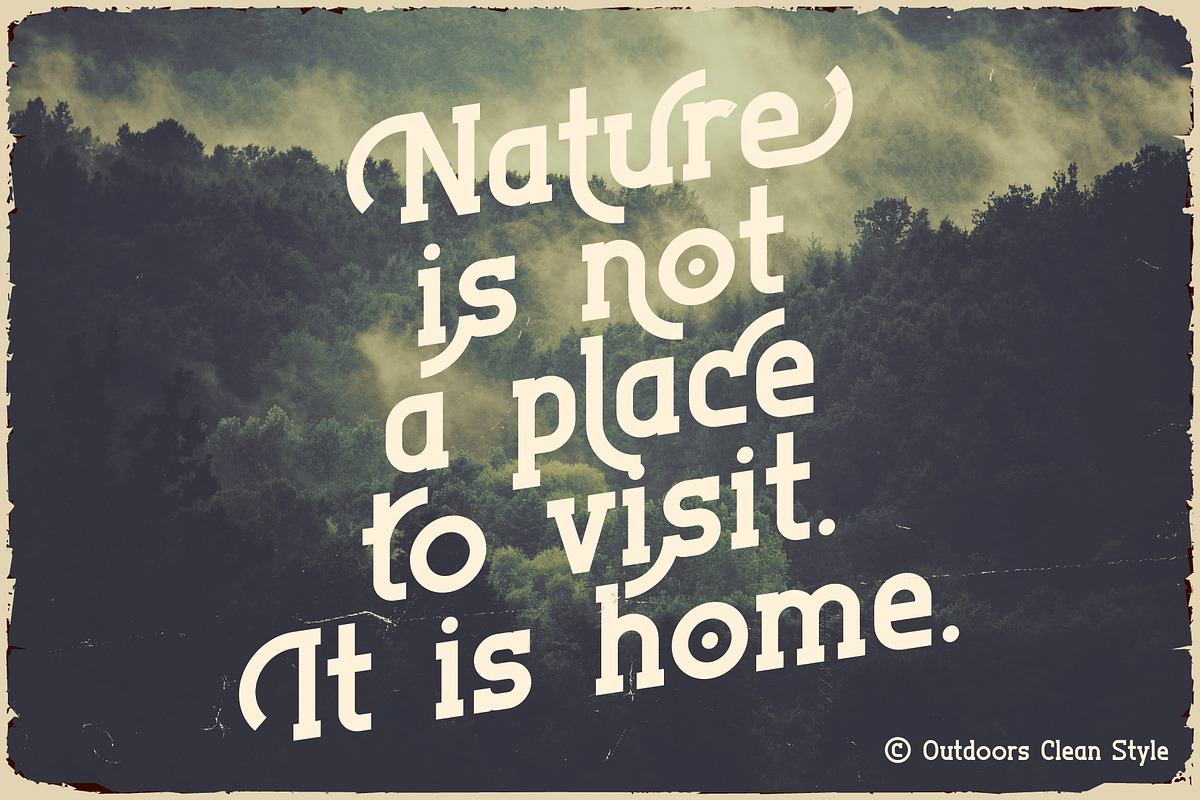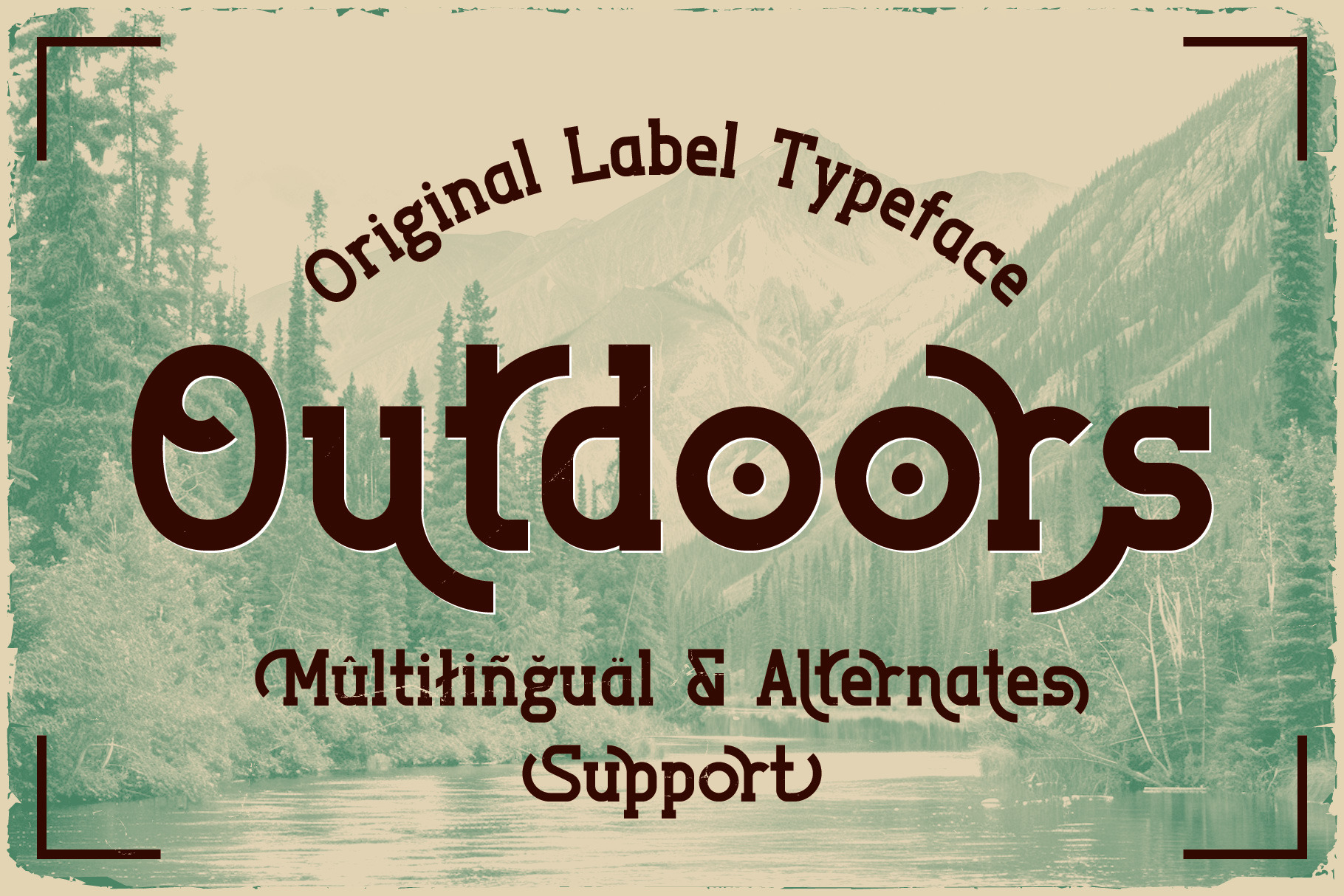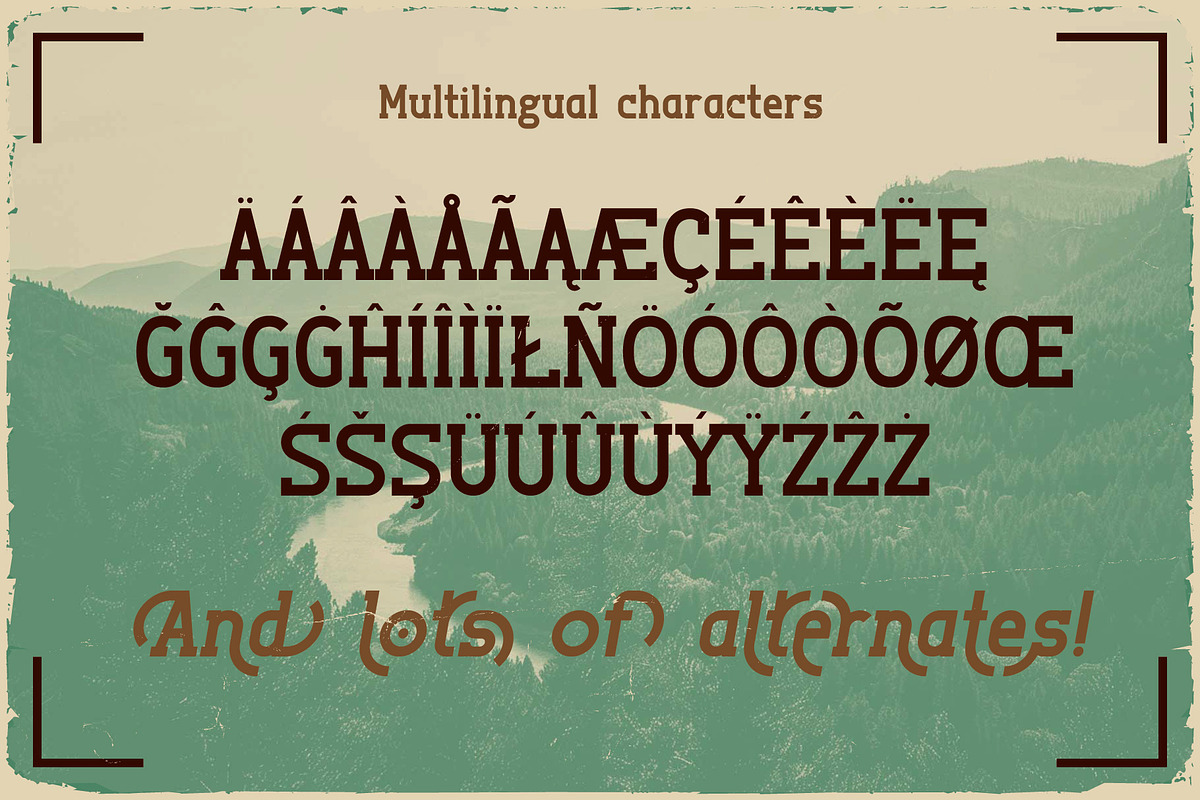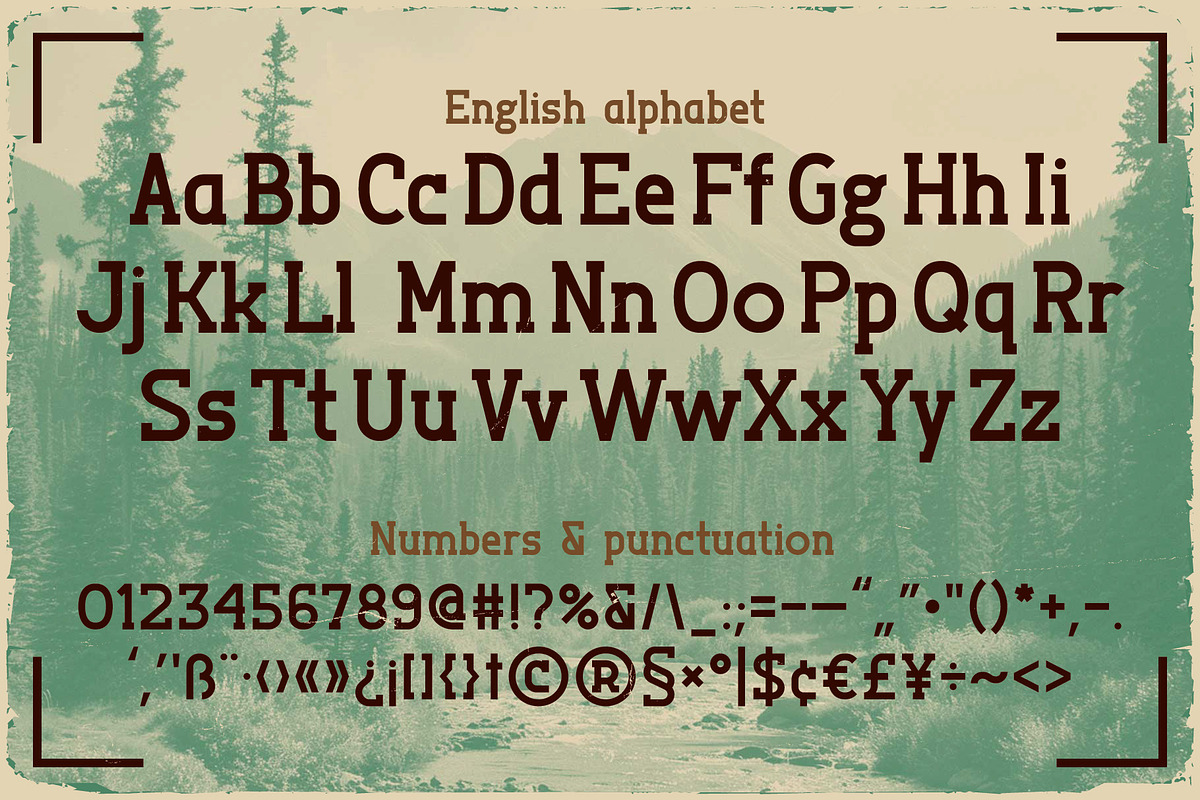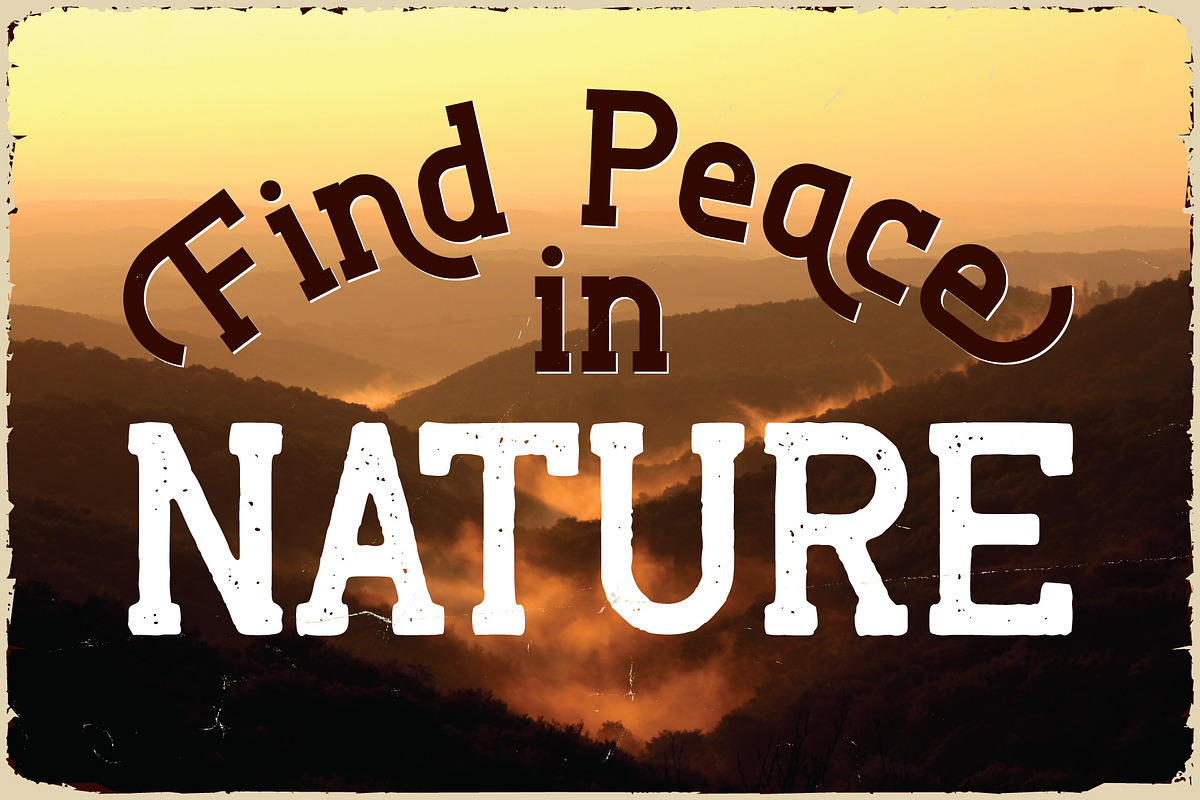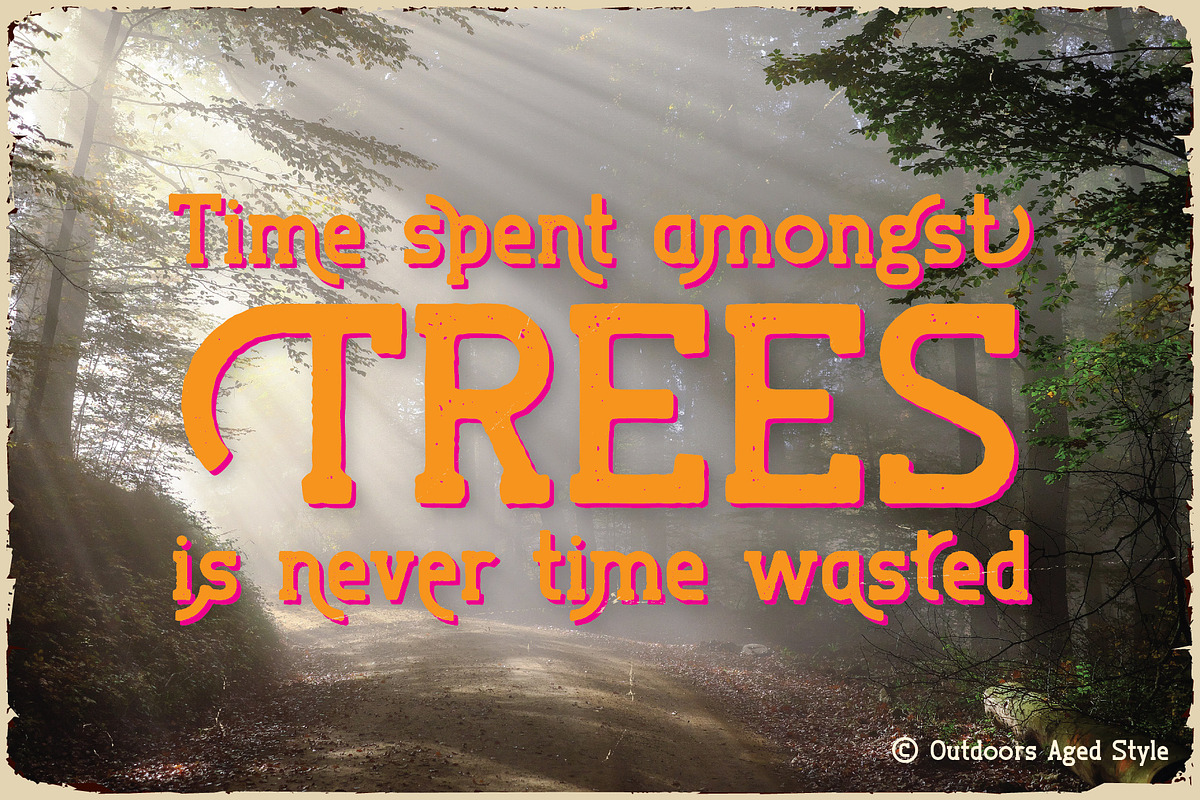
Outdoors Vintage Label Font
Unique, creative, vintage, retro, monogram & label slab serif font. Comes with multilingual support & alternate characters + textured font version - great for your new logo, monogram or branding project.
- 2 font styles - Regular & Textured
- Multilingual support & alternate characters
- Great for retro or vintage style branding projects